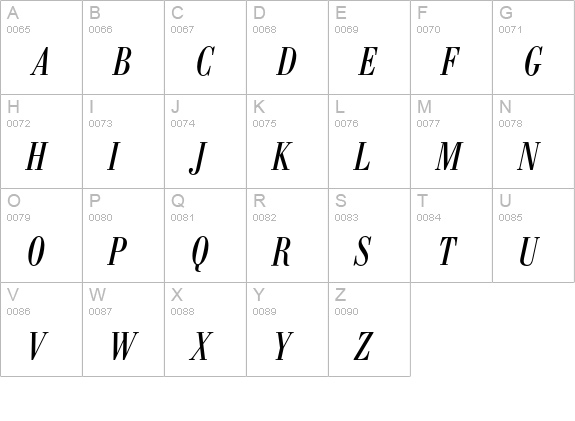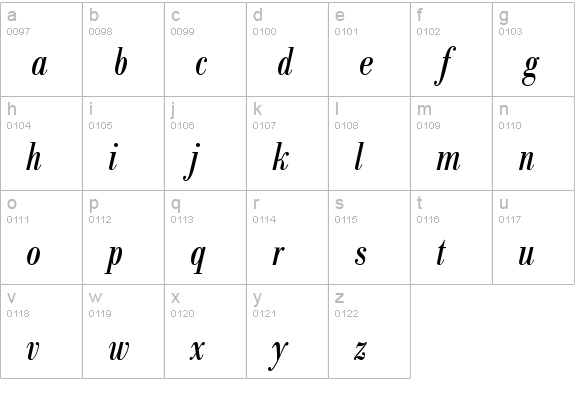
Bodoni Berthold Condensed BQ Italic Font Details
Bodoni Berthold Condensed BQ Italic is a distinctive, condensed-width, italic variant in the Bodoni typeface family \xE2\x80\x94 well suited to design and typography projects.
The Bodoni Berthold Condensed BQ Italic font exudes elegance and sophistication with its sleek and slender design. The italic style adds a touch of flair and modernity to this classic typeface. Perfect for conveying a sense of luxury and refinement, this font is ideal for use in high-end branding, editorial design, and fashion-related projects. What makes this font even more appealing is that it is available for free download at FontsMarket.com. This means you can easily access and use this premium-quality font without any cost. Don't miss out on the opportunity to enhance your designs with the timeless beauty of Bodoni Berthold Condensed BQ Italic font, now made freely accessible for all your creative endeavors.